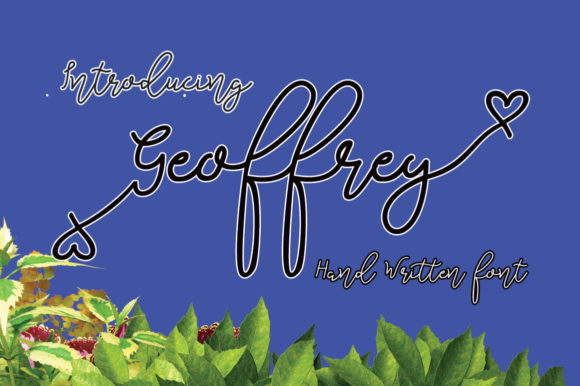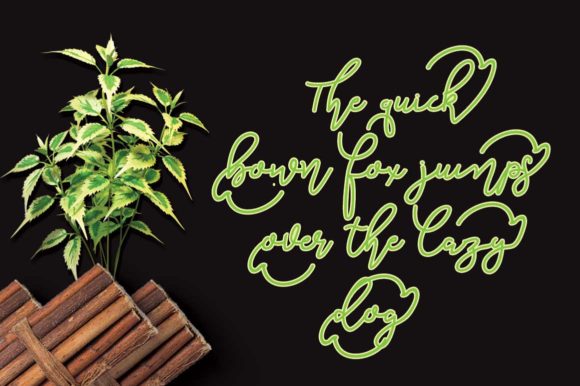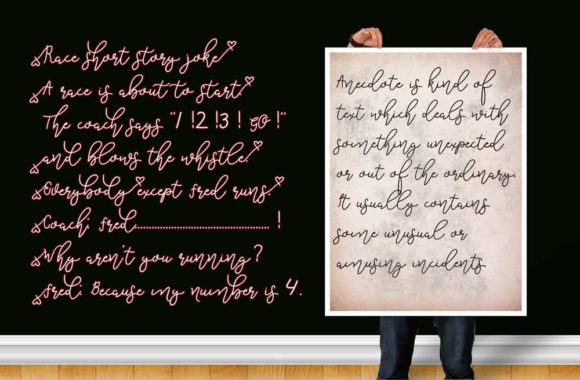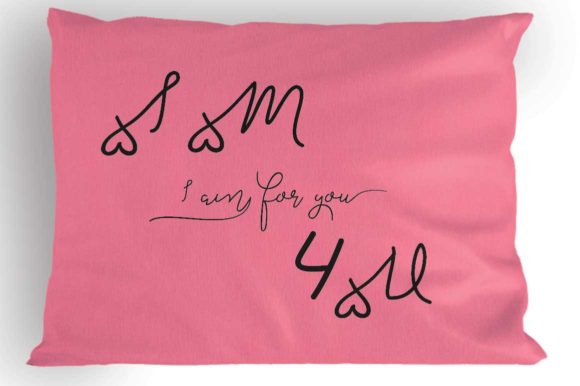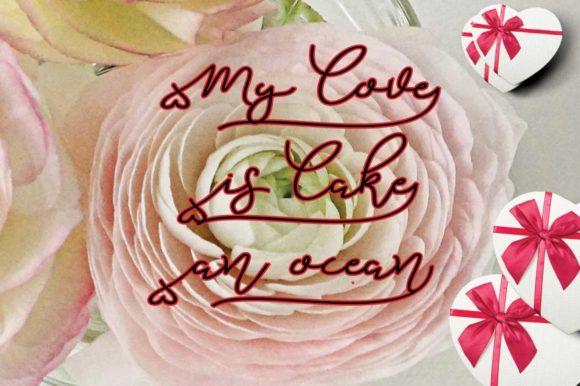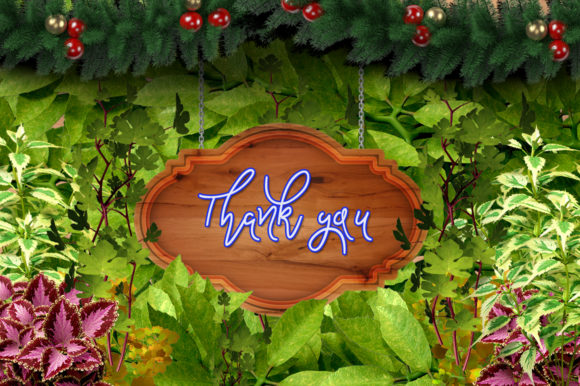
Geoffrey Font
About Geoffrey Font
Geoffrey perfectly blends together a distinct comic feel and a handwritten authenticity. It will effortlessly turn any design project into an eye catcher!